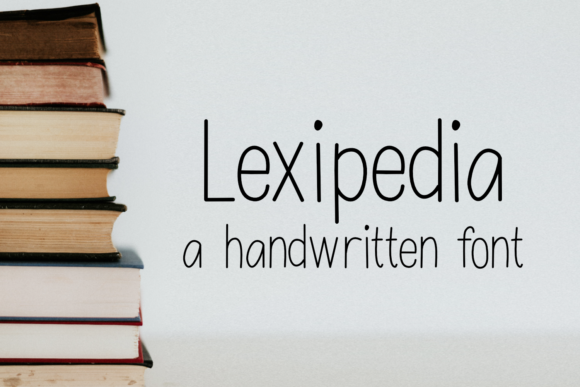
Embrace the allure of Lexipedia, a script font family designed to captivate and enchant. Experience the elegance of its meticulously crafted curves, each stroke a testament to the beauty of handwritten artistry. Let Lexipedia's graceful lines flow effortlessly across your designs, evoking a sense of whimsy and charm.
Unleash your creativity and let Lexipedia transform your projects into captivating masterpieces. Its delicate yet bold presence adds a touch of sophistication to any design, whether it's a product label, branding initiative, magazine cover, or social media post. Lexipedia is the perfect font for those seeking a unique and eye-catching aesthetic.
Step into a world of endless possibilities with Lexipedia. Its versatility knows no bounds, seamlessly adapting to a myriad of design styles. From the delicate charm of wedding invitations to the playful allure of social media graphics, Lexipedia effortlessly elevates your words, making them shine with an unforgettable allure.
With Lexipedia, you have the power to craft designs that resonate with your audience, leaving an indelible mark on their hearts and minds. Let your imagination soar as you explore the limitless potential of this remarkable script font. Embrace Lexipedia today and unlock the gateway to a world of creative enchantment.